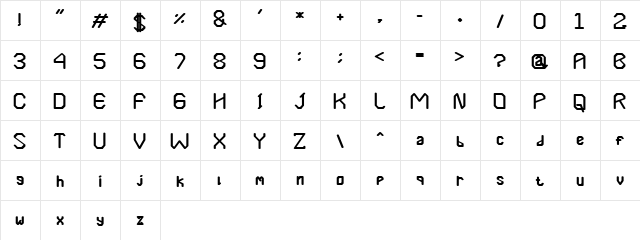
Roboday Regular
Design Context for Roboday Typeface
Roboday is a composed and adaptable typeface that performs quietly and consistently across a wide range of design contexts.